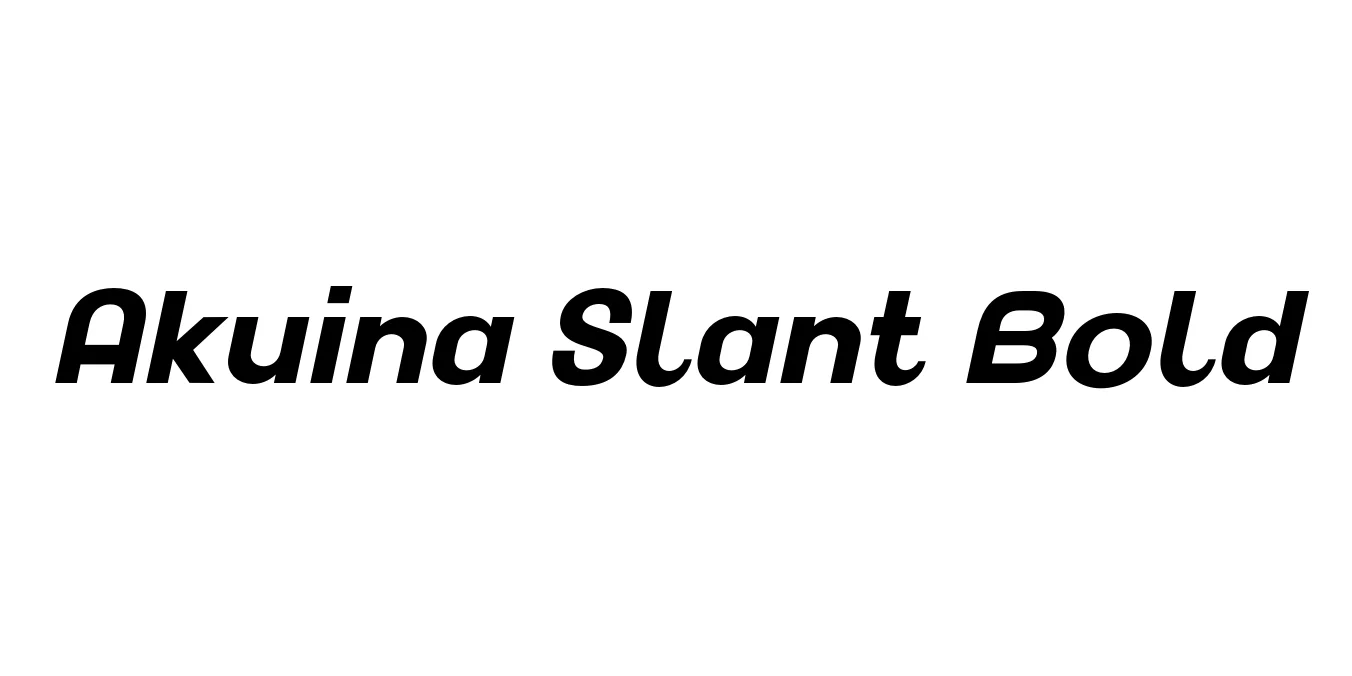
Akuina Slant Bold
Designed by Youshen Design
| Font Name | Akuina Slant |
| Category | Display / Sans Serif |
| Designer | Youshen Design |
Akuina Slant Bold is a high-impact display typeface designed to convey a sense of modern speed and industrial strength. Originally developed to meet the demands of sports branding and automotive graphics, its construction relies on heavy strokes and a sharp italicized lean that mimics aerodynamic motion. The font's aggressive stance and clean terminals make it a standout choice for designers who need to communicate power and precision in a digital or print format.
Beyond its technical applications, Akuina Slant Bold has found a significant home in the worlds of esports and high-fashion streetwear. Its bold, sans-serif architecture provides a solid foundation for complex visual identities, ensuring that headlines remain legible even when layered over busy textures or used in large-scale environmental graphics. It represents a bridge between classic mechanical design and contemporary digital aesthetics.
Akuina Slant Bold Best Uses
Ideal for high-energy team logos and athletic apparel graphics.
Perfect for vehicle wraps, racing posters, and car enthusiast magazines.
Commonly used for gaming clan identities and high-impact stream overlays.
Excellent for large-scale billboards and promotional advertising titles.